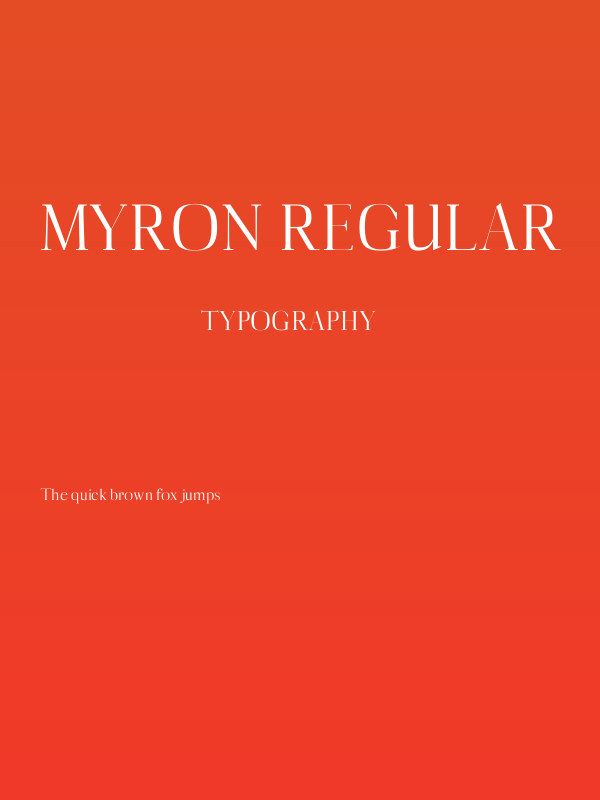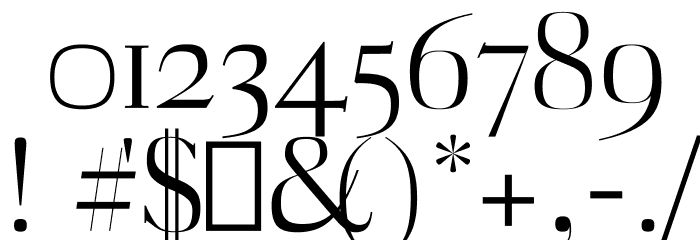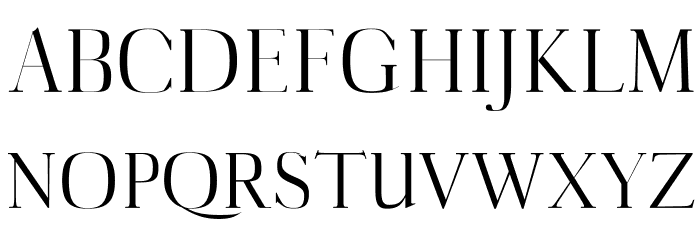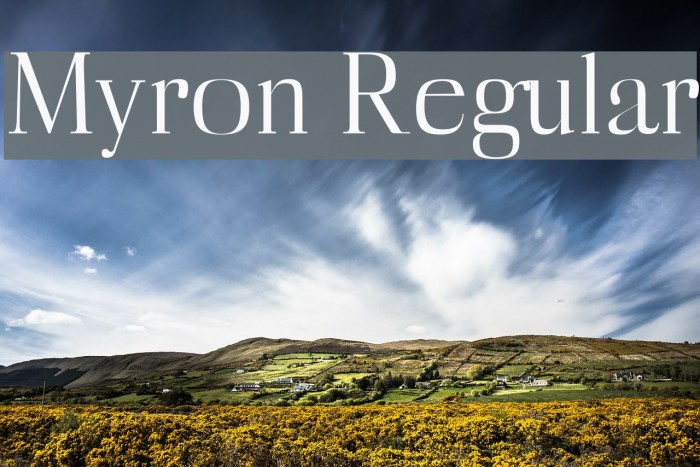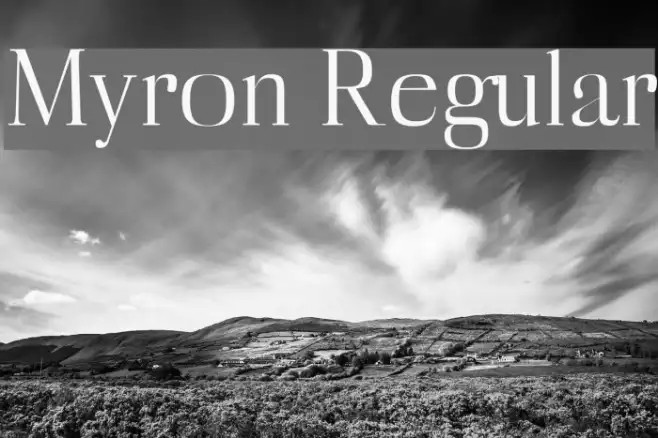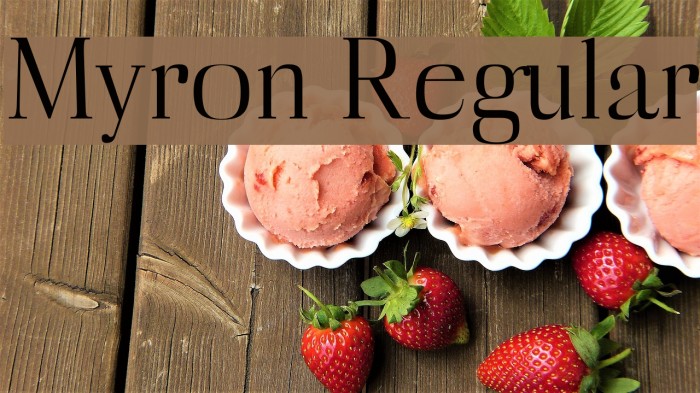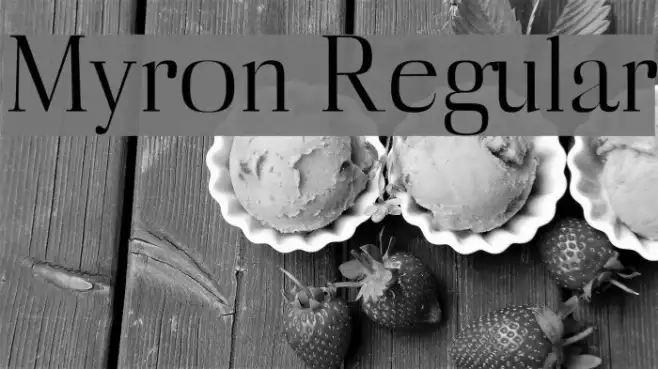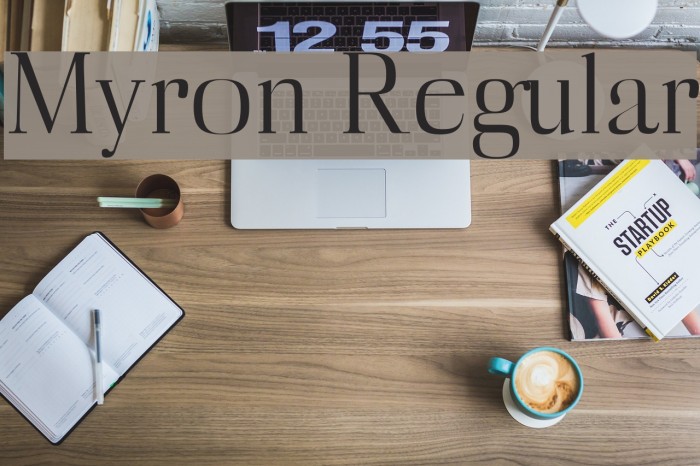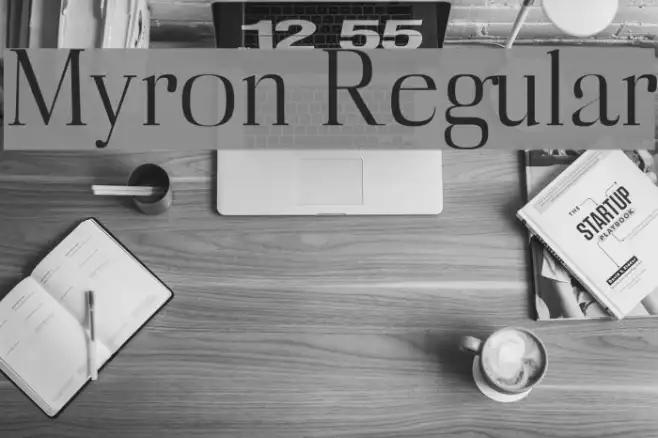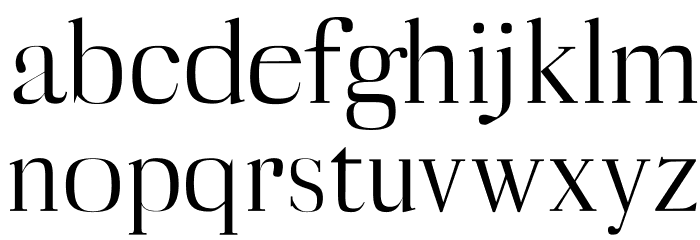
Myron Regular Font
Myron Regular Description
This font features a refined and elegant design with high contrast between thick and thin strokes, giving it a sophisticated and classic appearance. The serifs are sharp and pronounced, adding a touch of formality and tradition. The uppercase letters are tall and commanding, while the lowercase letters maintain a balanced and harmonious flow. The numerals are distinct and clear, making them easily readable. Special characters are designed with the same attention to detail, ensuring consistency throughout the typeface. This font is versatile, suitable for both digital and print media, and can be used to convey a sense of elegance and professionalism.
| Proposed Projects | Ideal for luxury branding, editorial design, wedding invitations, and high-end product packaging. |